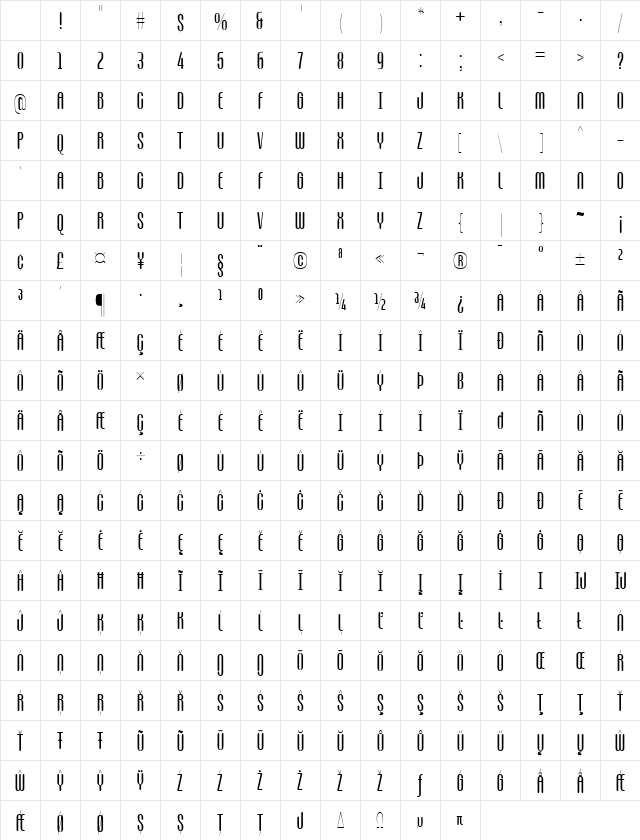
Complete ZT Bukayo ExtLt Regular glyph index. Displaying only characters natively supported by ZT Bukayo ExtLt Regular font.
ZT Bukayo ExtLt is a composed and adaptable typeface that performs quietly and consistently across a wide range of design contexts.